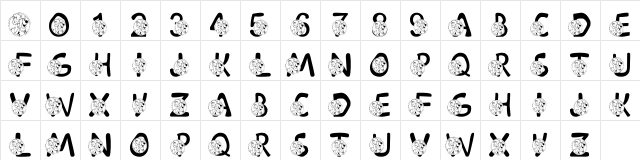
LMS Scooby Dooby Doo Regular
Design Context for LMS Scooby Dooby Doo Typeface
LMS Scooby Dooby Doo is a composed and adaptable typeface that performs quietly and consistently across a wide range of design contexts.